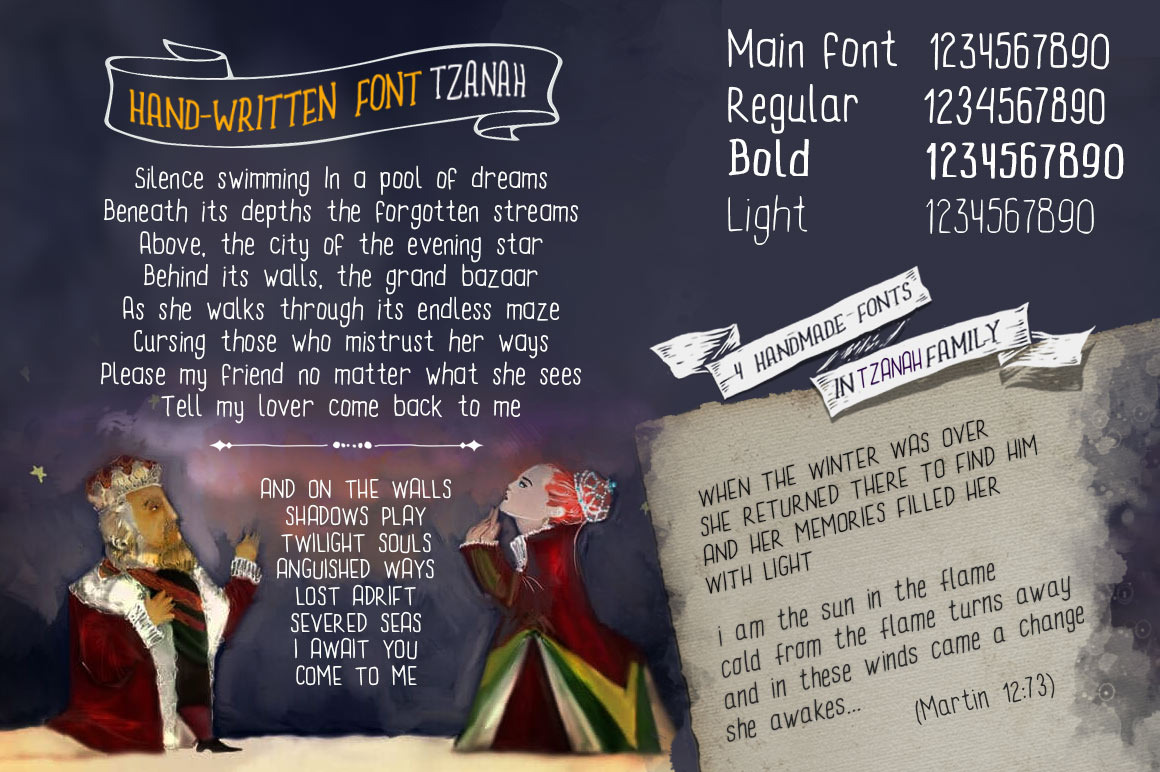
Hand Written font TZANAH
It comes in 4 styles (main, regular, light and bold) and it’s great for children literature and modern logos/articles. Includes a .ttf and an .otf versions, as well as a webfont.
This font is dedicated to (and inspired by) a girl who loves fairytales, stars and dragons.